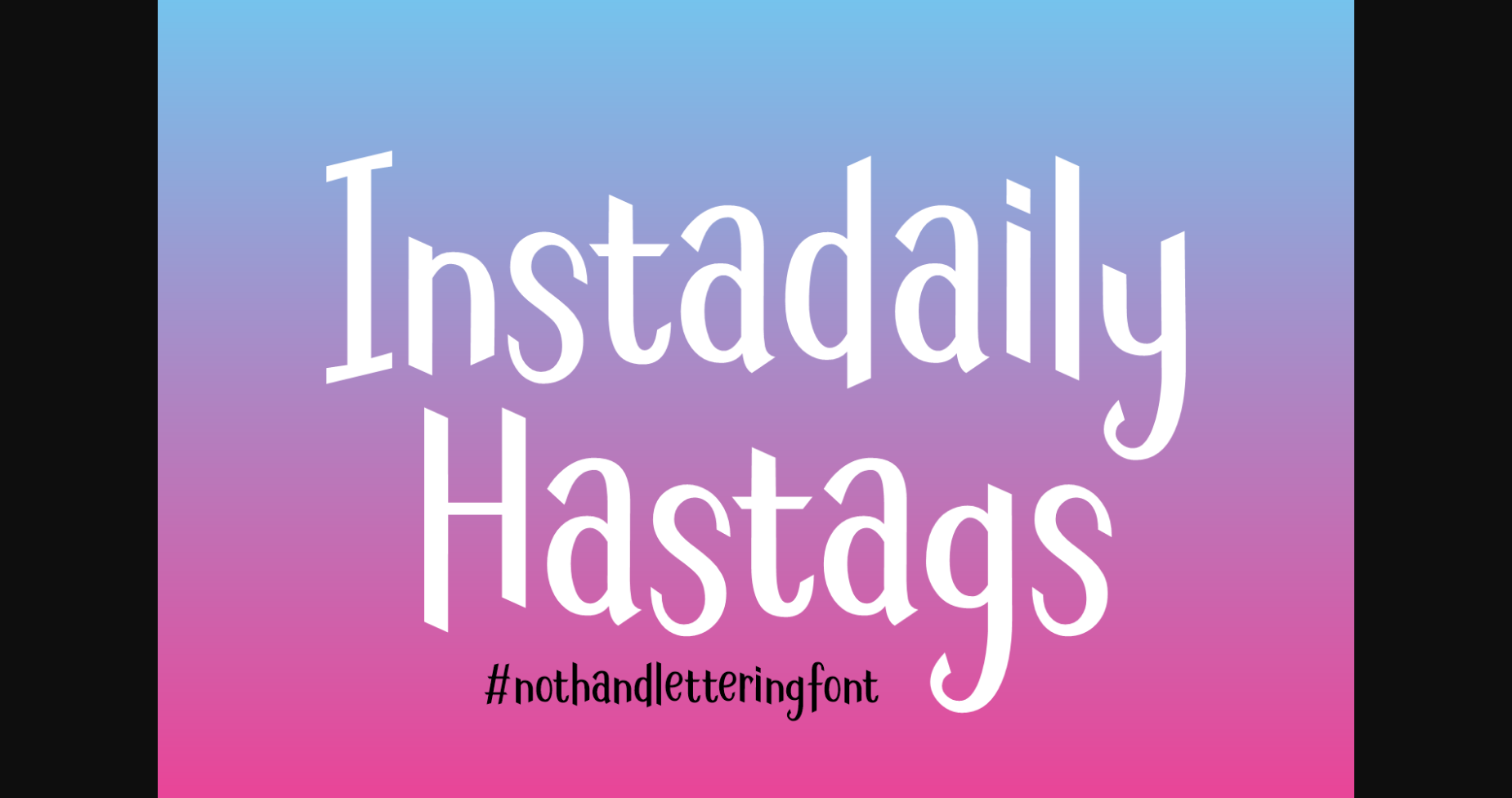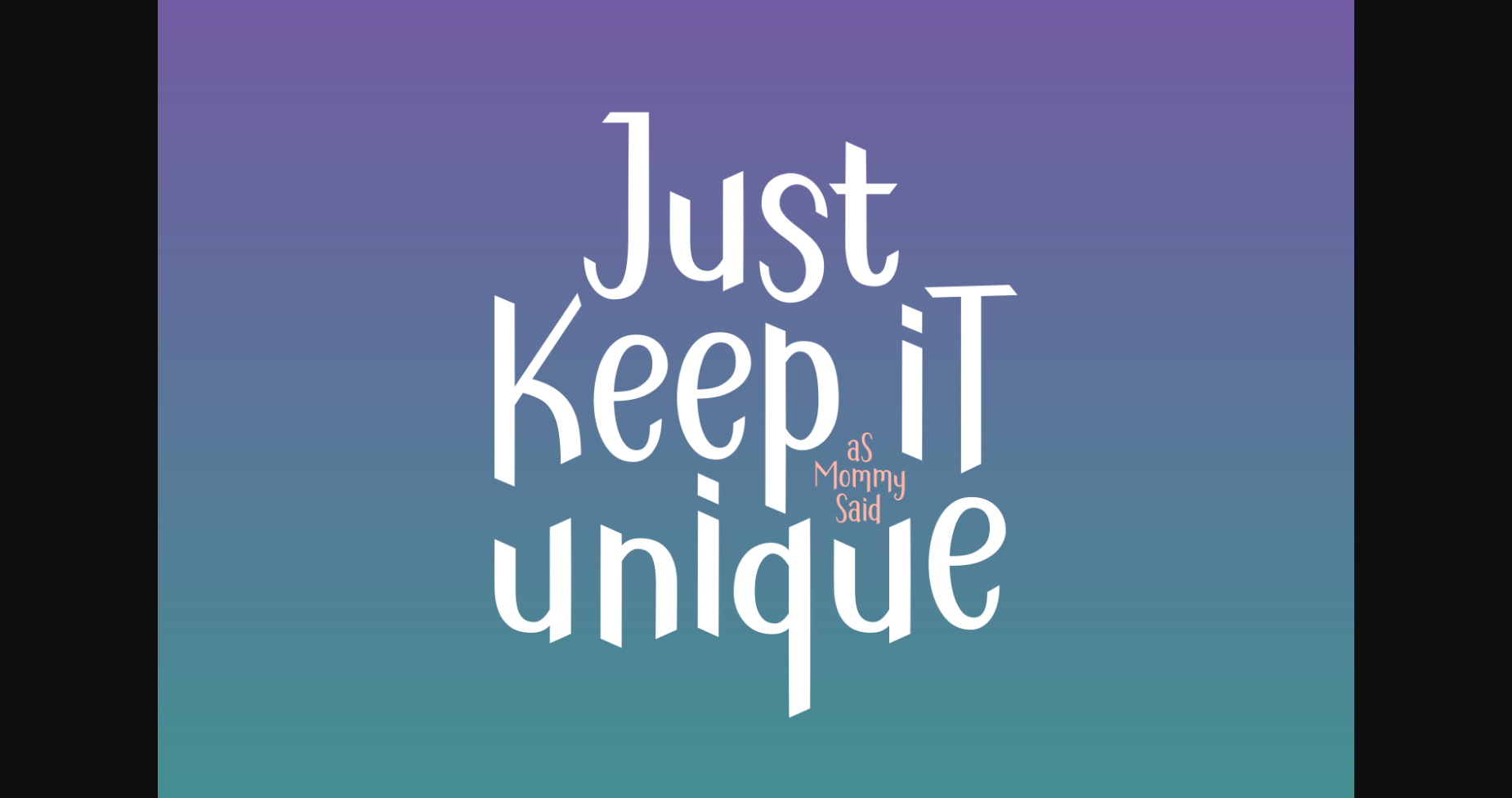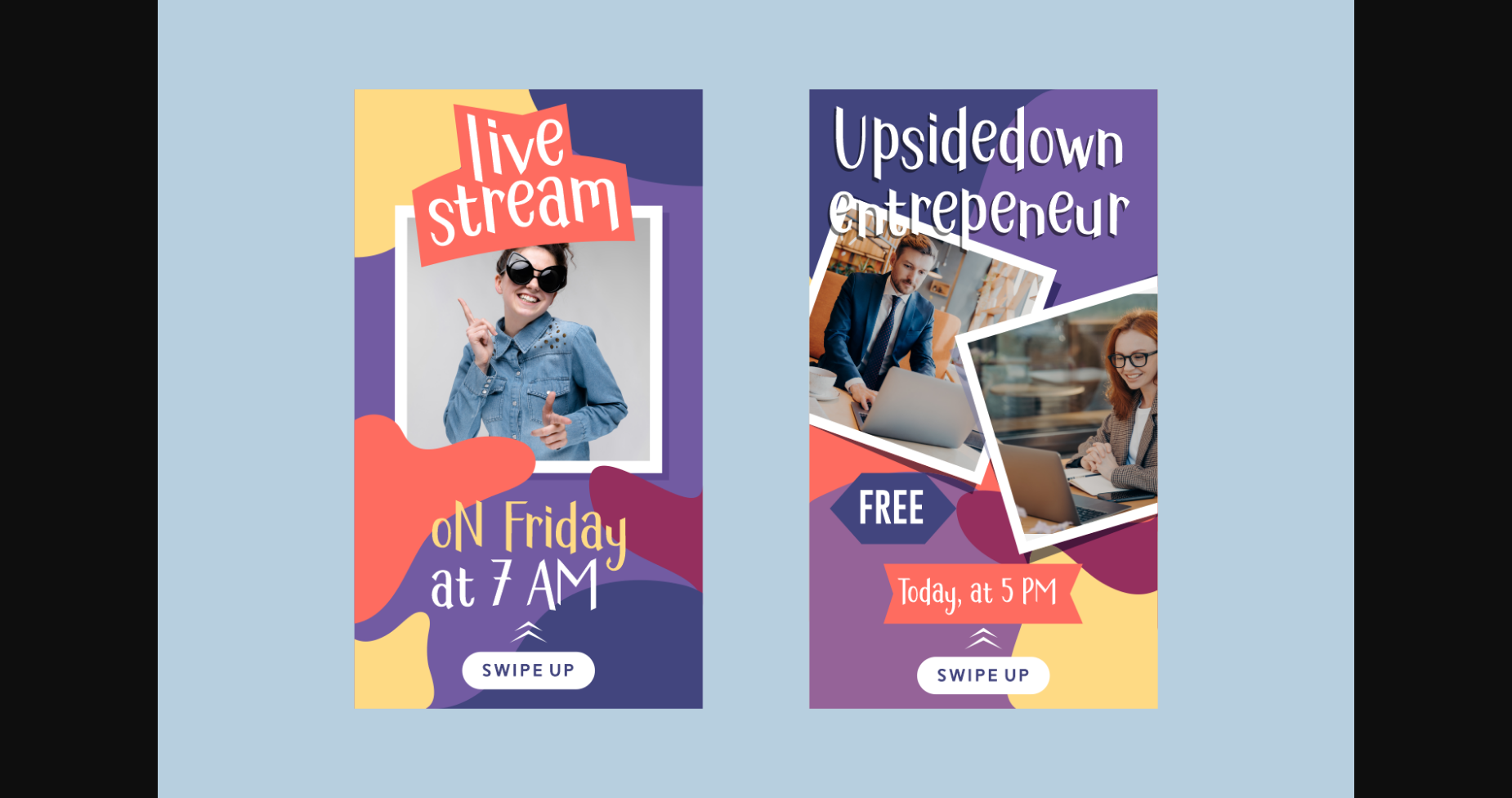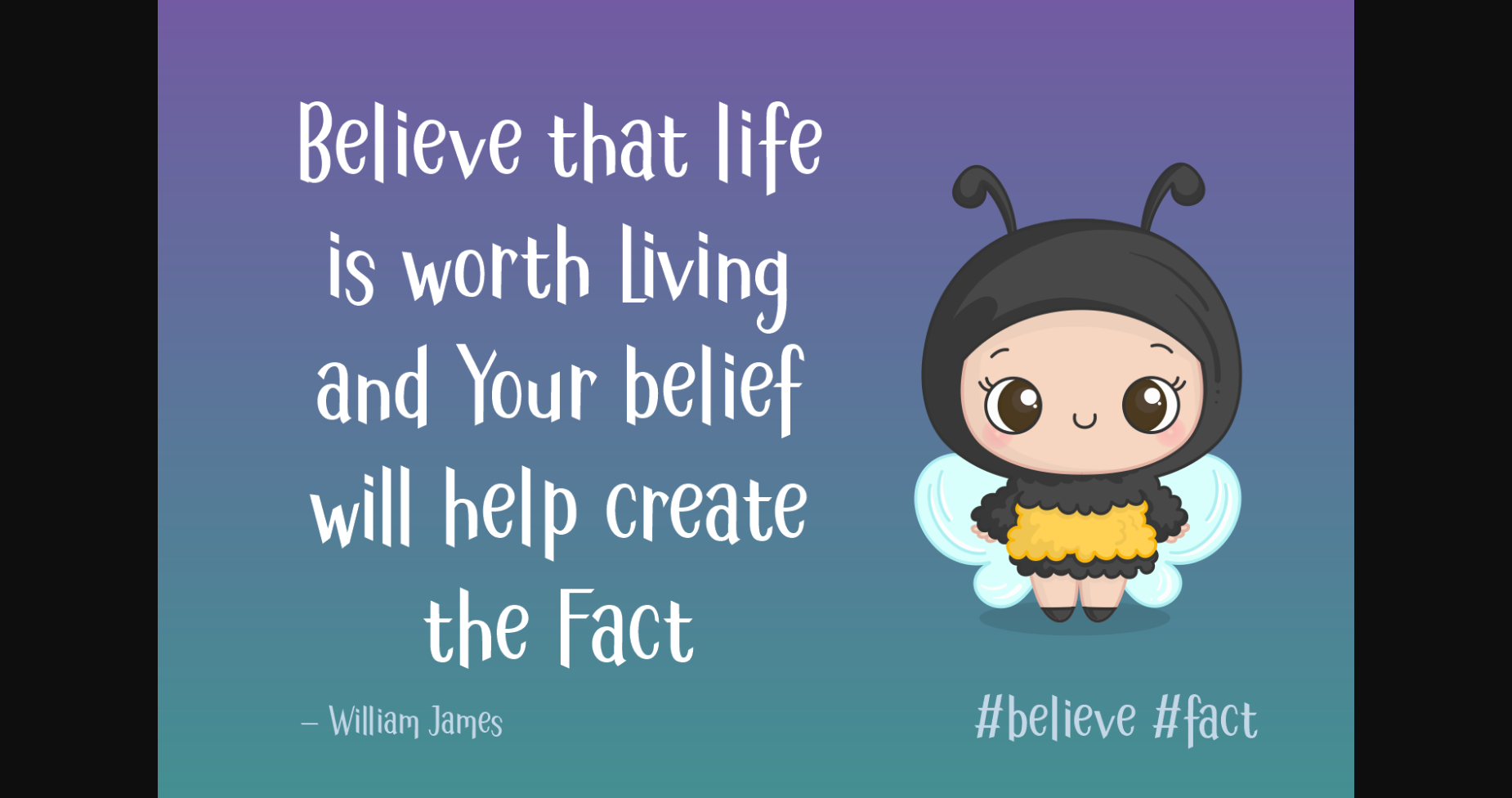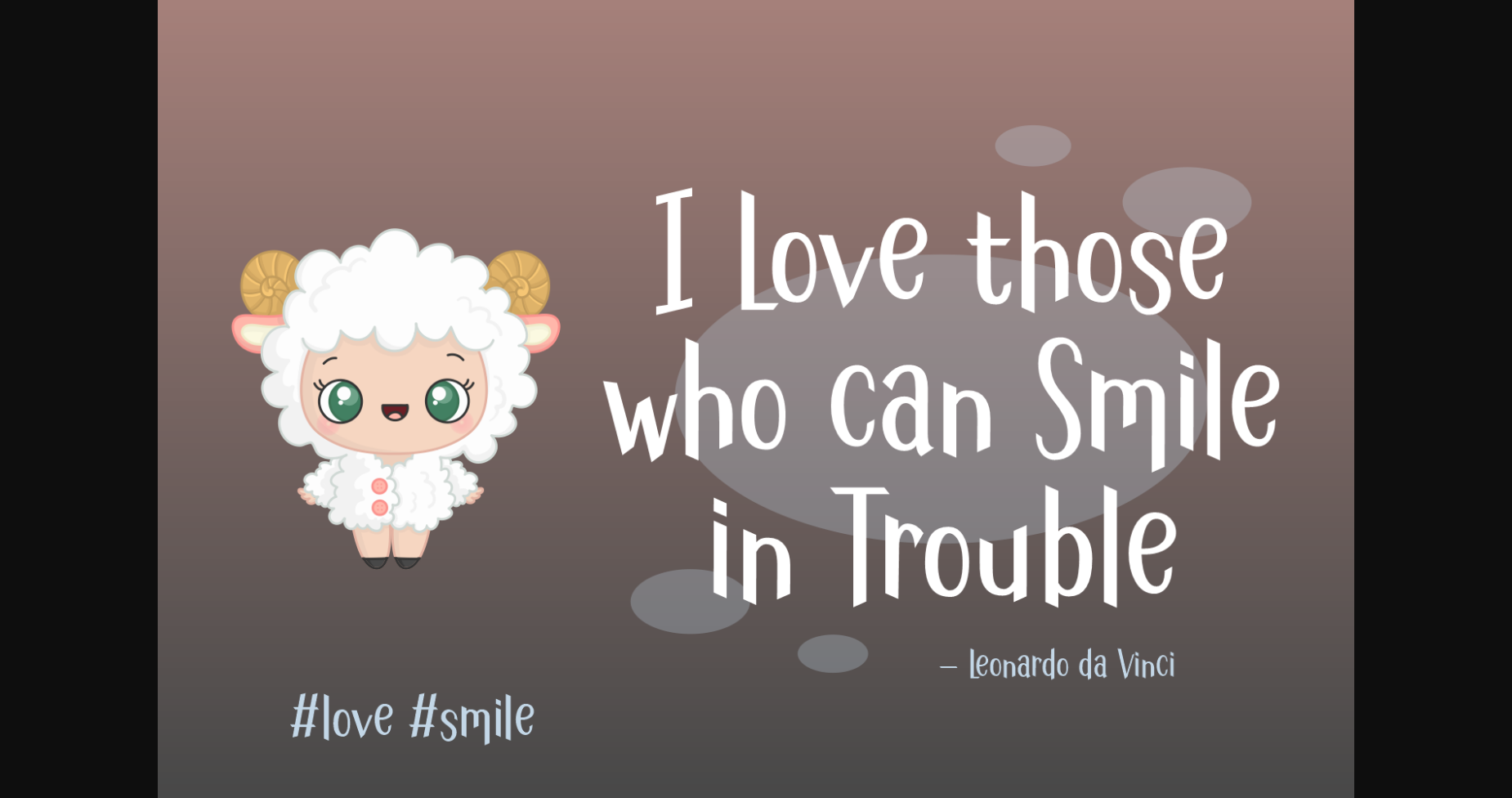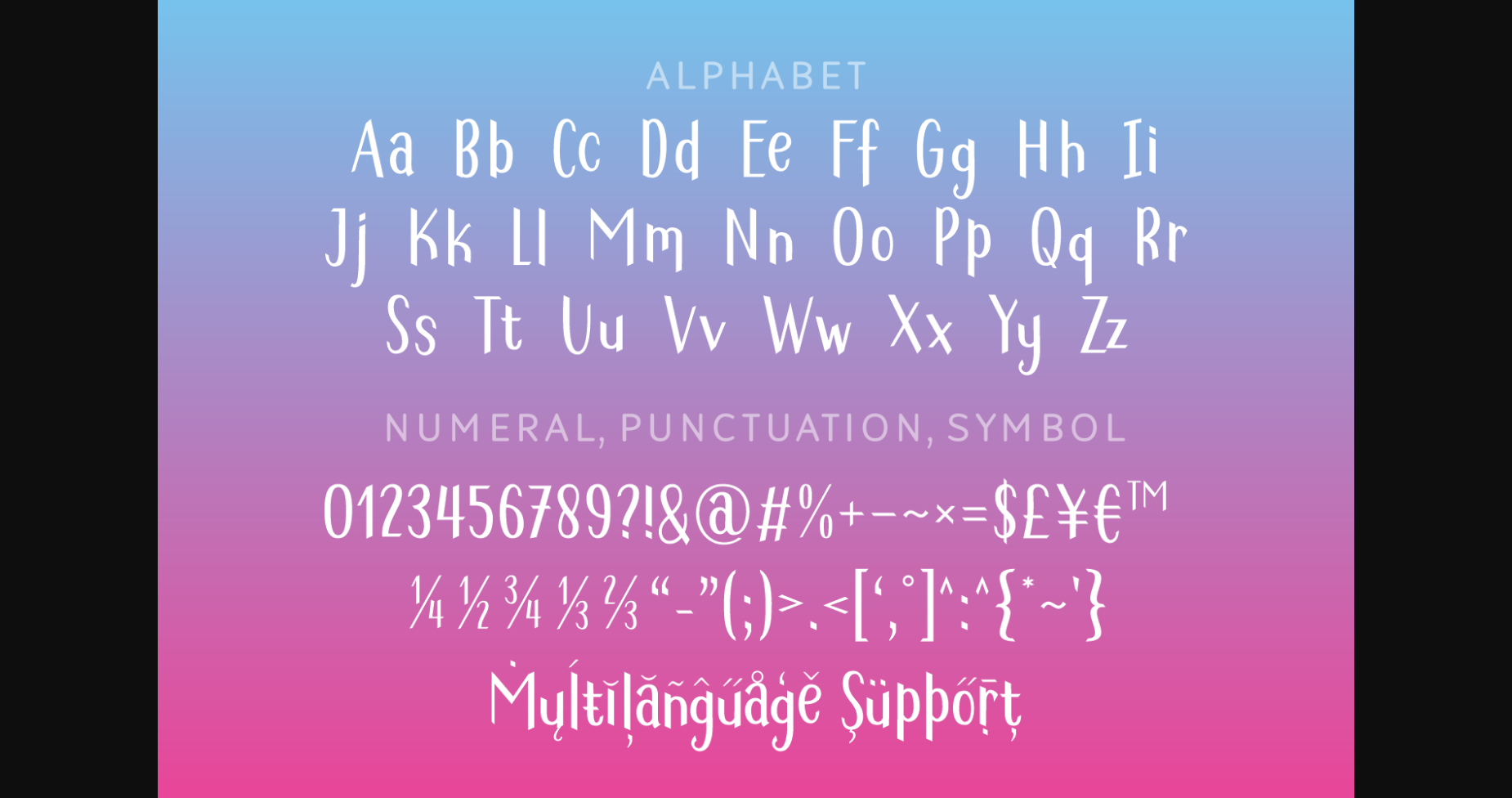
About Instadaily Hastags Font
Instadaily Hastag is both a lively and unique font. It is perfect for an eye-catching social media post but will also be successful in bringing your next craft project to life!